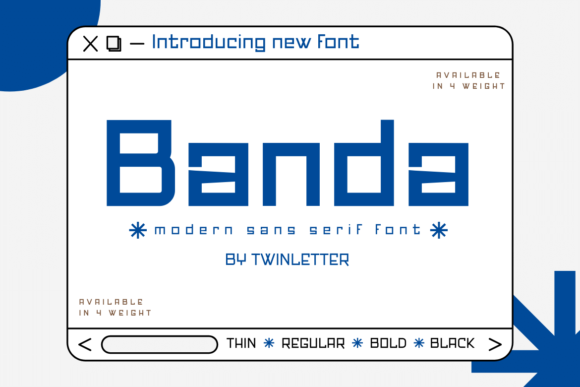
Journey into the world of digital aesthetics with Banda Font, the epitome of contemporary typography. Designed by the visionaries at twinletter, Banda Font is a striking display font that exudes modern elegance with its squared letterforms. As a user, you'll find yourself immersed in a world of creativity and endless possibilities.
Banda Font's distinct charm perfectly complements tech and futuristic themes, making it an ideal choice for tech-savvy individuals and businesses looking to leave a lasting impression. Its crisp lines and sharp angles evoke a sense of innovation and progress, capturing the essence of the digital age.
Beyond its technological appeal, Banda Font's versatility extends to a wide array of projects, catering to your diverse creative needs. From captivating business logos that demand attention to sophisticated packaging designs that reflect your brand's essence, Banda Font is your trusted companion. Unleash your creativity and craft posters that resonate with your audience, leaving an indelible mark on their minds.
Even in smaller applications, Banda Font shines. Create visually stunning banners that grab attention and drive engagement, or craft advertisements that leave a lasting impact. Let your apparel designs come alive with Banda Font's unique character, or add a touch of professionalism to your letterheads and correspondence.
Banda Font is more than just a font; it's an investment in your brand's visual identity. With its ability to elevate your designs and captivate your audience, Banda Font is the key to unlocking your creative potential and achieving online success. Embrace the future of typography and let Banda Font ignite your imagination today!